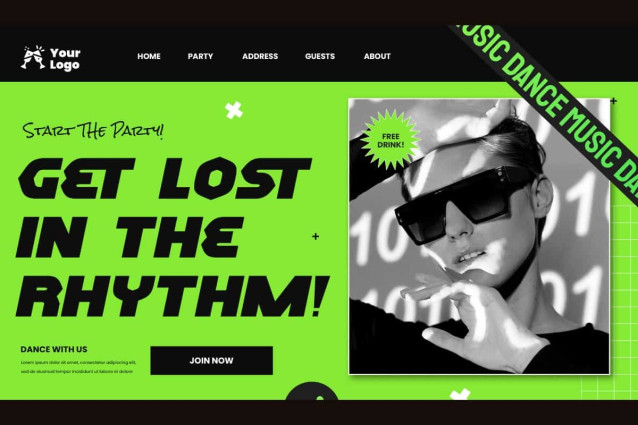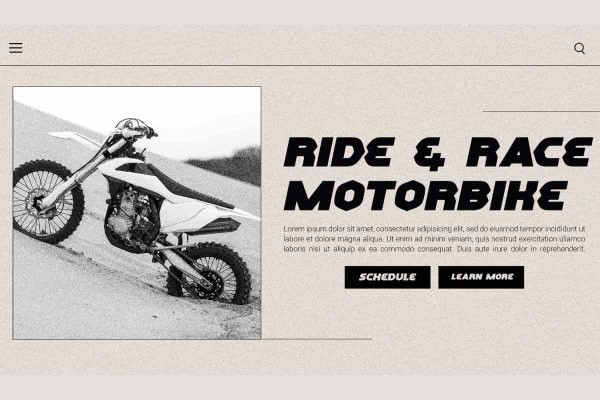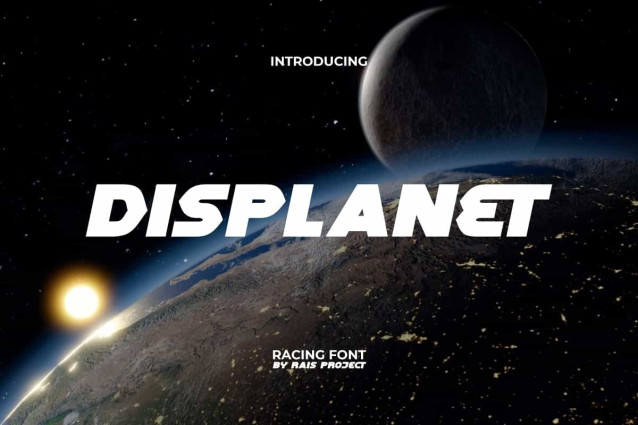
Displanet Font
Displanet Font is a bold and stylish display font with racing style, created by RaisProject. This font can radiate a sense of confidence through its cool and easy-to-read font characters. It will be good for any designs, such as custom design, product packaging, quotes, poster, signage, brand image, advertisement, stationery, invitation, label, marketing material, website page, and more!
Displanet Font includes a full set of ALL CAPS for Uppercase and Lowercase Letters, Numerals, and large range of Punctuation. This attractive font will be suitable for various industries, such as automotive, sports, fashion, game, barber shop, cafe, event or festival, photography, printing, publishing, etc.